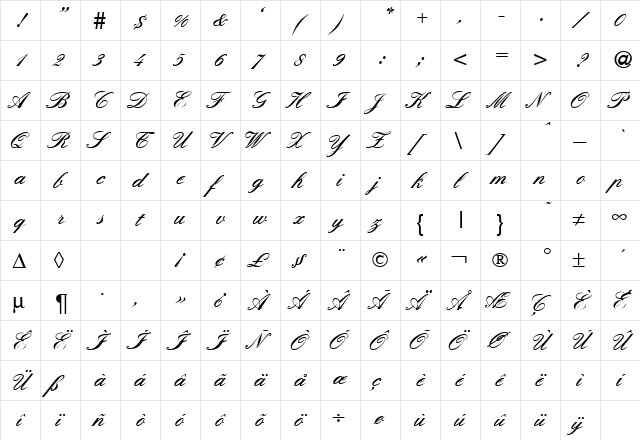
ElegantHandTwo Bold
Design Context for ElegantHandTwo Typeface
ElegantHandTwo brings a calligraphic fluidity to the page — its connecting strokes and expressive curves give it an unmistakably human quality. Its bold stroke weight gives it real presence on the page.
Font Pairing: Combine ElegantHandTwo with a simple geometric sans for maximum contrast — the tension between flowing curves and clean structure is a classic typographic pairing.
Pro Tip: Use ElegantHandTwo for short runs of text — names, titles, or taglines. Extended body copy in script faces tires the eye quickly.